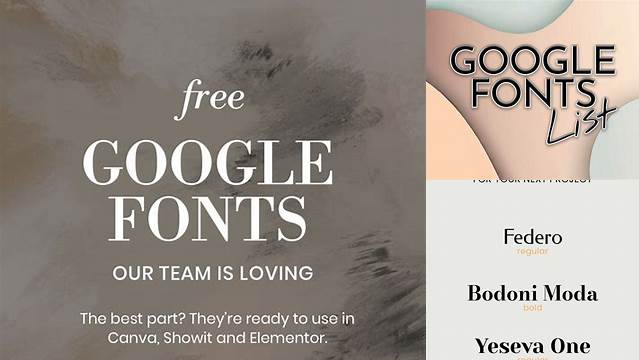
Unlock 100+ Free Google Fonts: Your Ultimate Guide
Hey guys! Are you ready to jazz up your website or design projects? One of the coolest and most accessible ways to do this is with fonts, and specifically, with Google Fonts! And the best part? There are over 100 free Google Fonts available for you to use. This guide is your go-to resource for everything you need to know about these awesome fonts. We'll dive into what makes them great, how to use them, and even some tips and tricks to help you pick the perfect font for your needs. Let's get started and explore the world of free fonts!
H2: What are Google Fonts and Why are They Awesome?
So, what exactly are Google Fonts? Simply put, they're a massive library of open-source fonts that you can use completely free of charge. Google hosts these fonts, making them super easy to access and use on your website or in your designs. They are available in various styles, weights, and languages, offering a ton of options to suit pretty much any project you can imagine.
Furthermore, Google Fonts boasts a fantastic variety. Whether you're after a sleek, modern sans-serif font, a classic serif font, or a playful script font, there’s something for everyone. This variety allows you to find the perfect font to match your brand’s personality and the overall aesthetic you're aiming for. And the quality is top-notch. Google Fonts are carefully curated and designed by talented type designers, ensuring they look great on any screen size and resolution. You get access to high-quality typography, without having to spend a dime. That’s a pretty sweet deal, don't you think?
In essence, Google Fonts make it easy for anyone to access beautiful, professional-quality typography. They offer a vast selection, they are easy to implement, and they're free to use – a winning combination!
H2: Finding and Choosing the Right Google Fonts for Your Project
Okay, so you're pumped about using Google Fonts, but where do you even begin? The Google Fonts website is your starting point, of course! Head over to https://fonts.google.com/ to explore the vast library. The website itself is user-friendly and offers some great features to help you find the perfect font for your needs.
One of the coolest features is the ability to filter fonts. You can filter by category (serif, sans-serif, monospace, handwriting, display), language, font properties (thickness, width, slant), and even by the number of styles available. This is super helpful when you have a specific style in mind, such as needing a readable sans-serif for body text or a bold display font for headlines. Another neat feature is the ability to type in your own text and preview it in different fonts.
When it comes to choosing the right font, think about the overall tone and message you want to convey. Serif fonts often feel more traditional and trustworthy, while sans-serif fonts tend to look more modern and clean. Handwriting fonts are great for adding a personal touch, and display fonts can grab attention with their unique and often dramatic styles. Consider the readability of the font, especially if you plan to use it for body text. Make sure the font is easy to read on different screen sizes and resolutions.
Think about the font's weight and style options. Will you need bold, italic, or different weights for headings and subheadings? Choose a font that offers the variations you need to create a clear visual hierarchy. It's also smart to consider pairing fonts. Don't be afraid to mix and match! Try pairing a serif font for your body text with a sans-serif font for your headlines.
Lastly, experiment. Preview your chosen fonts on your website or in your design mockups to see how they look in context. Try different font sizes, colors, and spacing to find what works best. Don't be afraid to try different combinations and take your time! Finding the perfect font takes a little trial and error, but it's totally worth it to elevate the look and feel of your project.
H3: Tips for Evaluating Font Readability
Okay, let's dig a little deeper into font readability because it's a crucial aspect of your website’s user experience! Imagine having an awesome website but the font makes the text hard to read – yikes! No one wants that. To evaluate a font's readability, there are several factors to keep in mind. First and foremost, consider the font size. A font that looks great on a designer's screen might be too small or large for the average user. Aim for a font size that is comfortable to read for most people, typically between 16 and 20 pixels for body text. Remember, it's always better to err on the side of a slightly larger font to ensure maximum readability.
Next, look at the font's letterforms. Some fonts are designed with specific features that enhance readability, such as a generous x-height (the height of lowercase letters) and distinctive letter shapes. Fonts with clear letterforms are easier for the eye to distinguish, reducing the chances of words and letters blending together. Check the spacing between the letters (tracking) and between the lines (leading). Adequate spacing prevents the text from appearing cramped and makes it easier to scan and comprehend. Too little spacing can make text look dense and uninviting.
Weight also plays a significant role. The weight refers to the thickness of the font. Light fonts might look elegant but can be difficult to read at smaller sizes, while bold fonts can be a bit overpowering when used for large blocks of text. Choose a font weight that suits your intended use – lighter weights for headings and heavier weights for body text can create a good balance.
Think about the contrast between the font and the background. The higher the contrast, the better the readability. Black text on a white background is generally the most readable, while light text on a light background is a recipe for frustration. Avoid using fonts that are too similar in color to the background.
Finally, test the font on different devices and screen sizes. What looks great on a desktop might look completely different on a mobile device. Always test your website’s fonts on various devices and browsers to ensure they render correctly and remain legible across all platforms. Checking these factors, you'll be able to select a font that is beautiful and super easy on the eyes, ensuring your users have an awesome time on your website.
H2: How to Integrate Google Fonts Into Your Website
So, you've picked your favorite Google Fonts and are ready to make them a part of your website? Awesome! Integrating Google Fonts is usually a breeze, and there are a few different ways to do it. The most common method is using the <link> tag in the <head> of your HTML document. This involves copying a specific code snippet from the Google Fonts website and pasting it into your HTML.
Here's how it works: First, go to the Google Fonts website and select the fonts you want to use. Click on the "+" icon next to each font to add it to your selection. Then, click the "View Family" button to see your selected fonts. You'll see a box with the code you need to embed the fonts into your website. Copy this code and paste it into the <head> section of your HTML document. This tells your website to download the fonts from Google's servers.
Next, you'll need to apply the fonts to your website's elements using CSS. In your CSS file, you'll use the font-family property to specify the font for different elements, such as headings, paragraphs, and other text. For example, to apply the font "Roboto" to all your paragraphs, you'd write: p {font-family: 'Roboto', sans-serif;}. Be sure to include a fallback font, such as sans-serif or serif, in case the Google Font doesn't load.
Another method is to use the @import rule in your CSS. This works similarly to the <link> tag but involves importing the font directly into your CSS file. To do this, add the @import rule at the top of your CSS file, like this: @import url('https://fonts.googleapis.com/css2?family=Roboto&display=swap');. Then, use the font-family property in your CSS to apply the font to your elements. This method can be a bit cleaner if you prefer to keep all your font-related code in one place.
Finally, you can also download the fonts and host them on your own server. While this isn't the most common approach, it can improve website performance by reducing the number of external requests. However, you'll need to download the font files (usually in .ttf, .otf, or .woff formats), upload them to your server, and then use the @font-face rule in your CSS to specify the font. This gives you a lot of control but requires more technical know-how. Whichever method you choose, make sure to test your website on different devices and browsers to ensure the fonts are displaying correctly.
H3: Optimizing Your Website for Fast Google Fonts Loading
Okay, let's chat about optimizing your website for fast Google Fonts loading. The goal is to make sure those beautiful fonts appear quickly without slowing down your site! A super important tip is to load fonts asynchronously. This means the browser loads the fonts in the background without blocking the loading of the rest of your website's content. To do this, ensure that you include the rel="preload" attribute in the <link> tag. For example: <link rel="preload" href="https://fonts.googleapis.com/css2?family=Roboto:wght@400&display=swap" as="style">. This tells the browser to download the font CSS as soon as possible.
Another way to optimize is to choose only the font weights and styles that you actually need. Every additional font weight (e.g., regular, bold, italic) or style increases the file size and slows down loading times. Avoid loading unnecessary variations to speed up the loading process. Next, consider using a font display strategy. You can specify how the font is displayed while it's loading, so the text doesn't disappear and reappear once the font has loaded. Use the font-display: swap; property in your CSS. This tells the browser to display the text in a fallback font until the desired font is ready. Then, once the font is available, it quickly swaps it in.
Minifying your CSS and HTML files can help reduce file sizes and improve loading times. By removing unnecessary characters from your code, you can speed up the process of loading the font files. Caching is also your friend. Make sure your server is set up to cache font files so that returning visitors don't have to download them again. Use browser caching to store files for a period of time. Also, keep an eye on your website’s overall performance using tools like Google PageSpeed Insights. These tools can help you identify and address any performance bottlenecks. The tool provides insights on font loading and gives recommendations for improvements. Finally, test your website on different devices and browsers to ensure your optimizations are working effectively and that the fonts load quickly and consistently.
H2: Advanced Tips and Tricks for Using Google Fonts
Ready to level up your Google Fonts game? Let's dive into some advanced tips and tricks that will help you make the most of these awesome fonts! First off, consider using variable fonts. These fonts allow you to control multiple variations (weight, width, slant, etc.) within a single font file. This can significantly reduce the number of font files you need to load, improving website performance. Variable fonts are a great choice if you need different font weights or styles and want to avoid loading separate font files for each variation.
Next, think about using font subsets. Google Fonts allows you to specify a specific character set (e.g., Latin, Cyrillic, Greek) when you embed a font. If your website only uses a specific language, loading only the necessary character sets can reduce file sizes and improve loading times. You can select character sets in the Google Fonts website by clicking the "Customize" tab and checking the required character sets.
Experiment with font-weight and font-style variations. Don't be afraid to use bold, italic, or different weights for headings, subheadings, and body text to create a visual hierarchy and improve readability. When designing, consider using CSS preprocessors like Sass or Less. Preprocessors make it easy to manage and organize your CSS, including font-related styles. This helps you to create reusable font styles and makes it simpler to make changes across your website.
Consider how your chosen fonts look in different contexts. Make sure your font looks great on all different screen sizes, browsers and devices. Also, think about accessibility. If your website is not accessible, then you're doing it wrong. Ensure your chosen fonts meet accessibility standards, especially for users with visual impairments. Use sufficient contrast between the text and the background, and avoid using fonts that are difficult to read. Make sure to test your website's accessibility using accessibility checkers and screen readers.
H3: Font Pairing: Matching Fonts for Optimal Design
Let's talk about font pairing. You know, choosing fonts that look great together and create a cohesive visual experience. It's an art and a science! Choosing the right font pairings is one of the most important things for a beautiful design. Begin by understanding the relationships between different fonts. Fonts can be complementary, contrasting, or similar. Complementary fonts share similar characteristics but have slight differences. Contrasting fonts have very distinct styles, creating a visual impact. Similar fonts are almost alike and create a sense of harmony.
Think about your website’s purpose and target audience. What kind of feeling are you trying to create? A formal website might use a serif font for body text and a sans-serif font for headings, while a website for children might use playful, rounded fonts. A good font pairing complements the message your brand is trying to convey. Select fonts that match your brand’s personality, from sleek and modern to friendly and approachable.
Contrast can be a powerful tool. Pair fonts with different weights or styles to make text pop. A good way to achieve contrast is to combine serif fonts with sans-serif fonts. Look at the overall aesthetic and think about how the fonts will look in context. Make sure the fonts work well together, with one acting as a visual anchor and the other providing contrast. Use the same font throughout your site. However, the weight of the font changes for different headings and body text, providing visual harmony. Experimenting and practicing is an essential part of mastering font pairings. Try different combinations on your design mockups, test it, and compare the different choices.
Also, there are many resources online, such as font pairing guides. Consider the readability and usability of your font pairings. Ensure that the contrast is good enough to make the text legible. Test your font pairings on different devices and screen sizes to see how they appear in different contexts. Also, be sure to test them out on multiple browsers.
H2: Google Fonts Alternatives: Exploring other Free Font Resources
While Google Fonts is awesome, it's not the only game in town. There are other great sources of free fonts you can use for your projects! Let's take a look at some of the best alternatives. First up is Font Squirrel. They offer a fantastic collection of free, high-quality fonts, all available for commercial use. They curate their fonts carefully, ensuring they meet high standards for quality and design. Font Squirrel also has an impressive selection of unique and stylish fonts that you won't find on Google Fonts.
Next, we have Adobe Fonts. Even if you're not an Adobe Creative Cloud subscriber, you might be able to access some of their free fonts. This option is super valuable because they have a huge font library, including many premium fonts. Another resource to explore is DaFont. This site has a massive collection of free fonts, but it's important to carefully check the license for each font before using it. The fonts are organized by category, making it easy to find fonts in specific styles.
Another great option is FontSpace. This site also offers a huge selection of free fonts, with many of them available for commercial use. FontSpace is easy to navigate, and the fonts are well-organized. Make sure to always double-check the licensing before you use any font, to make sure you can use them for your project. If you are unsure, you can always contact the creator and ask for clarification. These additional font resources can add variety and offer different fonts for your website and design projects.
H3: Understanding Font Licenses and Usage Rights
Okay, guys, let's get real about font licenses. It's super important to understand the rules that come with the free fonts you use. When you download a font, it comes with a license that specifies how you can use it. Not all free fonts are created equal! Most Google Fonts are licensed under the Apache 2.0 license, which is very permissive, meaning you can use the fonts for commercial and personal projects. However, other fonts, even those labeled "free," might have different licenses. Always carefully check the license agreement before you use a font.
Pay close attention to the specific terms of the license. Some licenses might restrict how you can use the font, for example, by limiting its use to personal projects or prohibiting the creation of logos. Others might require you to credit the font designer or include a link to their website. Make sure you understand these rules. Ensure that the license allows for commercial use if you plan to use the font for your business. Some licenses might allow for commercial use but with certain restrictions, such as limiting the number of websites or projects. Always adhere to the license terms. If you violate the terms, you might face legal consequences.
If you are unsure about a font's license, it's always best to err on the side of caution and contact the font designer or the website where you found the font. They'll be able to provide clarification. Also, be aware of any attribution requirements. Some licenses require you to credit the font designer or include a link to their website. Make sure you follow these requirements to avoid legal issues. Understanding font licenses might seem a little boring, but it's a necessary step to ensure you are using the fonts legally and respectfully.
H2: Avoiding Common Mistakes When Using Google Fonts
Even with the best intentions, it's easy to make mistakes when using Google Fonts. Here are some common pitfalls to avoid! One major mistake is choosing too many fonts. Using too many different fonts on a website can make it look messy and unprofessional. Stick to a maximum of two or three fonts. Use one for headings and another for body text. Make sure the fonts look good together and create a cohesive look.
Another common mistake is not considering readability. Selecting fonts that are difficult to read is a big no-no. Be sure to test your chosen fonts on different screen sizes and devices to ensure they are legible. In addition, choosing fonts without regard to your brand is also a common error. Select fonts that match your brand’s personality, from sleek and modern to friendly and approachable. Always choose fonts that align with your website's tone and message. A website that is for children should be playful and fun, using fonts that are rounded.
Poor font loading is another problem. Optimize your website to load fonts quickly to improve your user experience. Use the font-display: swap; property to prevent the text from disappearing and reappearing once the font has loaded. Ignoring licensing requirements is also a huge mistake. Always check the font license before you use it, and make sure you are following the license terms. If the license requires you to credit the font designer, make sure you do so.
Another mistake is not testing your fonts on different devices and browsers. What looks good on your computer might look completely different on a mobile device or a different browser. Therefore, always test your website on different platforms. Another mistake is not considering the overall design. Ensure the font complements the overall design of your website. Test your fonts and see how they look on the website. Do they match the content and image of the website?
H3: Troubleshooting Common Google Fonts Issues
Even with all the best practices, sometimes things go wrong! Let's talk about troubleshooting common issues when using Google Fonts. One of the most common problems is fonts not displaying correctly. If your fonts aren't showing up, first double-check your code. Make sure you've correctly embedded the <link> tag or the @import rule and that the font names in your CSS match the names on the Google Fonts website. Ensure that the file paths are also correct. Typos can also cause problems. Be careful with the spelling. Make sure that there are no typos when typing the font names in the CSS file.
Another issue is slow loading times. As discussed previously, this can be caused by a number of issues. First, ensure you are using the most efficient way to load fonts. Consider using the font-display: swap; property. Optimize your font files by using a font subset, if possible. Choose only the font weights and styles that you actually need. Also, consider your internet connection, which can affect the loading speed of your fonts. If your website is on a slow internet connection, the fonts might take longer to load.
A third issue is accessibility problems. Ensure that your chosen fonts meet accessibility standards. Choose a font with sufficient contrast between the text and the background. Test your website’s accessibility using accessibility checkers and screen readers. Also, check for browser compatibility issues. If a font doesn't display correctly on some browsers, make sure the code is compatible with different browsers. If you're still having trouble, check the Google Fonts documentation. It has lots of helpful information, and you might find the answer to your problem there. There are also online forums and communities where you can ask for help.
H2: Customizing Google Fonts: Beyond the Basics
Ready to go beyond the basics? Let's explore some ways to customize Google Fonts and make them truly your own! First, think about using CSS to modify the font's appearance. Use CSS properties like font-size, color, letter-spacing, and line-height to adjust the font to your needs. Don't forget about text shadows and text transformations to add visual effects. Experiment with these properties to create unique and interesting text styles.
Another cool trick is to use CSS variables to manage your fonts. This allows you to easily change the font across your entire website by simply updating a single variable in your CSS. CSS variables make it super easy to update and manage your fonts. Explore using JavaScript to dynamically change your fonts. You can use JavaScript to change the font based on user interaction. You can make your website more interactive and engaging.
Consider using font ligatures. Some fonts support ligatures, which are special characters that combine multiple letters into a single glyph. Ligatures can improve the readability and aesthetics of your text. Be sure to choose fonts that support ligatures. Another tip is to use font subsets. As mentioned earlier, this reduces the file size and improves loading times. By customizing the character sets, you can select characters that match your specific needs.
Furthermore, consider the context and purpose of the content you are creating. If you want to grab the reader's attention, you could use the font for display purposes. Always experiment with your fonts. The key is to experiment and try different variations. Try different font sizes, styles, and arrangements to find what fits your needs best. Take the time to create a unique and customized design. Play around with the fonts until you find the perfect combo.
H3: Google Fonts and SEO: Optimizing Fonts for Search Engines
Hey guys, let's talk about how Google Fonts affect your website's SEO. Optimizing your fonts can help boost your website's search engine rankings. First, focus on ensuring your fonts load quickly. Slow-loading fonts can negatively impact your website's speed and affect your SEO rankings. Therefore, use the best practices to optimize font loading, such as using font-display: swap; and only loading necessary font weights and styles. Test your website’s loading speed regularly. Also, use web-safe fonts as a fallback. In the case that your Google Fonts fail to load, it’s super important to ensure that your website can fall back to web-safe fonts.
Next, focus on improving the readability of the text. Fonts with good readability are better for user experience and will also help your SEO efforts. For body text, use readable font sizes, spacing, and weight. Make sure your fonts are optimized for mobile devices. Ensure your website is responsive and looks good on all devices. Optimize your website for mobile. Next, use proper heading tags. Use heading tags such as <h1>, <h2>, and <h3> to structure your content. This helps search engines understand the structure of your website and the importance of different elements.
Choose fonts that are optimized for different screen sizes. Avoid using fonts that are difficult to read on mobile devices. Choose fonts that are easy to read in small sizes. It's super important to have a good user experience. This will positively impact your website's SEO. Prioritize making your website user-friendly. By applying these recommendations, you'll be able to create a great user experience and also improve the ranking of your website on search engines.
H2: Free Google Fonts for Branding: Choosing Fonts that Reflect Your Brand
Choosing the right Google Fonts is essential for branding your website. The fonts you choose should align with your brand's personality, values, and the message you want to convey. First, think about your brand's personality. Is your brand fun, serious, sophisticated, or playful? Your fonts should reflect these qualities. Different fonts convey different emotions. Serif fonts often feel more traditional and trustworthy. Sans-serif fonts often appear more modern and clean. Display fonts can grab attention with their unique and often dramatic styles.
Next, define your brand's values. What are the core values that define your brand? Your fonts should reinforce these values. Choose fonts that communicate these values to your audience. Consider your target audience. Who are you trying to reach? Select fonts that resonate with your target audience and appeal to their preferences. Create a style guide. Create a style guide that defines your brand's fonts, colors, and other design elements. This ensures consistency across all your brand’s assets. Keep things consistent. Maintain consistency throughout your website and all other materials. The combination of fonts, colors, and designs should be coherent. Choose fonts that reflect your brand’s overall aesthetic and message.
Furthermore, explore font pairing. Choose font pairings that complement your brand’s identity. Experiment and test out different combinations of fonts to see how they look on your design. Look for inspiration. Look at different websites and brands that you admire. Observe the fonts they are using. Get inspiration from these websites. Evaluate your choices. Think about how well your chosen fonts communicate your brand’s message and identity. Does the font convey the right feel for your brand? Always keep your brand in mind. Never deviate from your brand identity.
H3: Free Google Fonts for Different Design Styles
Okay guys, let's explore some specific Google Fonts perfect for different design styles! If you are designing a minimalist website, use sans-serif fonts, such as Open Sans, Montserrat, or Lato. These fonts are clean, simple, and easy to read, which is ideal for minimalist design. If you are working on a vintage design, consider serif fonts such as Playfair Display or EB Garamond. These fonts have a classic and elegant feel. These fonts can help you create a vintage look.
For a modern design, use sans-serif fonts like Roboto or Poppins. These fonts are clean and versatile, making them ideal for modern websites. Another font, such as Oswald, is also a good choice. If you're designing something playful, consider using display fonts such as Bungee or Luckiest Guy. Display fonts are fun and grab the reader’s attention. If you are designing something artistic or creative, use fonts such as Dancing Script or Amatic SC. These fonts add a unique personal touch to your design.
If you are designing a website that is for technology, use sans-serif fonts like Source Code Pro. These fonts have a technical and professional aesthetic. For a website with a luxury look, choose fonts such as Cormorant Garamond or Playfair Display. These fonts are elegant. Always try to find the right combination that matches the design. Play around with different styles of fonts and choose the best option that matches your needs. Also, consider the overall look and feel you are trying to create.
H2: License-Free Google Fonts: Ensuring Legal and Compliant Font Usage
Using Google Fonts legally is really important, right? Let’s talk about ensuring you are using these fonts in a way that follows the rules! As mentioned earlier, most Google Fonts are licensed under the Apache 2.0 license. This license is permissive, allowing you to use the fonts for both personal and commercial projects. However, it’s always a smart move to double-check the license terms for each font before you start using it. Always review the specific license terms, which are available on the Google Fonts website.
Pay close attention to any restrictions or requirements. The Apache 2.0 license does not generally have restrictions on use. However, other fonts might have different licenses that could limit the number of websites or projects. Always double-check and follow all terms and conditions of the license. If there are any license-related requirements, such as attribution, always make sure to follow them. Attribution requires you to credit the font designer or include a link to their website. Also, keep a record of the font licenses. It's a great idea to keep track of the licenses for all the fonts you use.
If you are unsure about anything, don't hesitate to contact the font designer or Google Fonts. Always adhere to any and all license terms. If you are using the fonts for commercial use, then you should also make sure to consult with your legal team. Using license-free fonts correctly helps you avoid any legal issues and respect the work of the font designers. This is essential to ensure your website and design projects are compliant. Also, if you make any changes, ensure you are always following the law.
H3: Future-Proofing Your Website: Staying Updated with Google Fonts
Keeping up with Google Fonts is a must for a modern website! Let's discuss how to future-proof your website by staying updated. You're going to want to keep an eye on the Google Fonts website for new fonts and updates. Google is always adding new fonts, so you can use the new fonts to add new design options. Monitor for any updates to the licenses. It's also important to stay informed about the latest features and best practices for using Google Fonts. Follow Google Fonts’ official blog and social media channels to learn about new releases.
Next, you should regularly test your website’s fonts on different devices and browsers to ensure they are rendering correctly. Make sure that the fonts work well in the latest versions. Test your website on different devices. If any compatibility issues come up, address them right away. Update your fonts as needed. It's always a good practice to keep your Google Fonts library up-to-date. Revisit your design choices. Regularly review your website's design. Decide whether you need to update your fonts. Make sure the fonts still align with your brand identity.
Keep your CSS code clean and organized. The code should be readable and well-commented. If you ever need to make a change to the design, it'll be super easy to do. Use CSS preprocessors, such as Sass or Less, for a more efficient coding. The preprocessors help you write more organized CSS code. Also, regularly back up your website files. Always back up your fonts and CSS files. This helps protect your work. Consider using a content delivery network (CDN) for your fonts. CDNs can improve your website’s performance and loading speed.